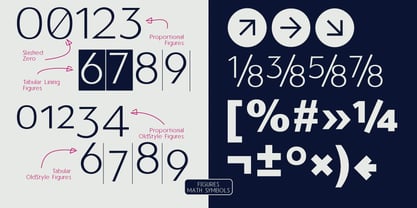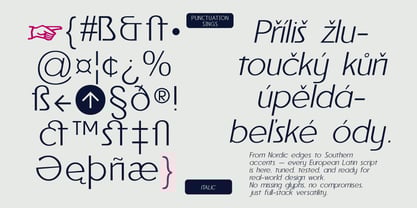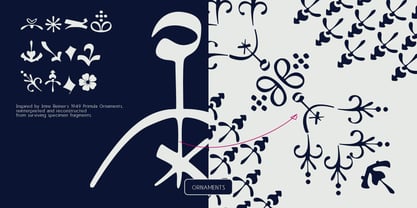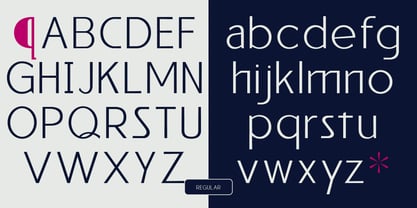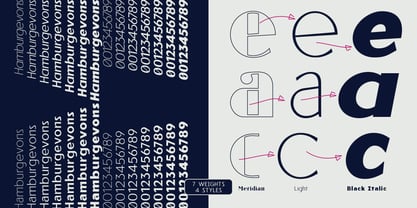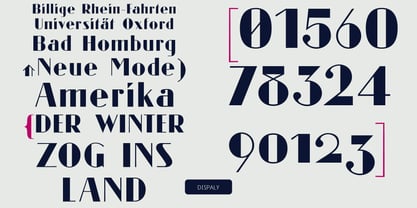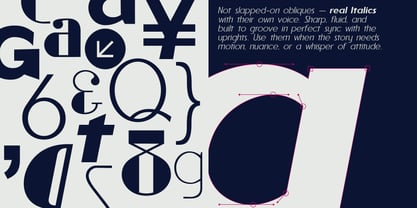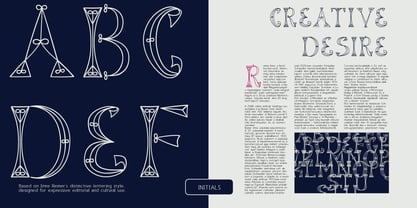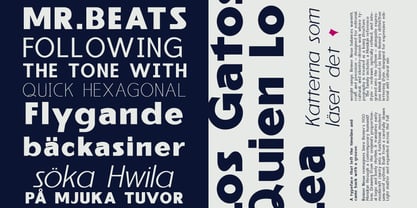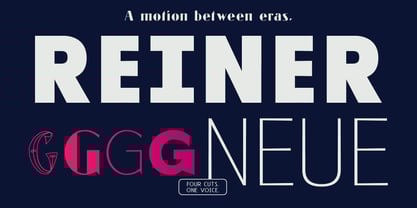
Reiner Neue
by Monovo
The Reiner Neue Font Family was designed by Amondó Szegi and published by Monovo. Reiner Neue contains 14 styles and family package options. More about this family
A typeface that left the timeline and came back with a groove. Reiner Neue reimagines Imre Reiner’s 1930 Meridian through a contemporary humanist lens. Drawing from the original’s proportional logic and lively rhythm, it translates early modernist clarity into a functional, modern sans-serif system. Built from a carefully drawn Light master and expanded across the full weight range, Reiner Neue balances warmth, craft, and precision — designed for editorial, cultural, and identity-driven work where typography is treated as a living structure. The family includes a Meridian reference style — redrawn, optically refined, and integrated into the system — alongside expressive Initials based on Imre Reiner’s distinctive lettering style, designed for expressive editorial and cultural use.